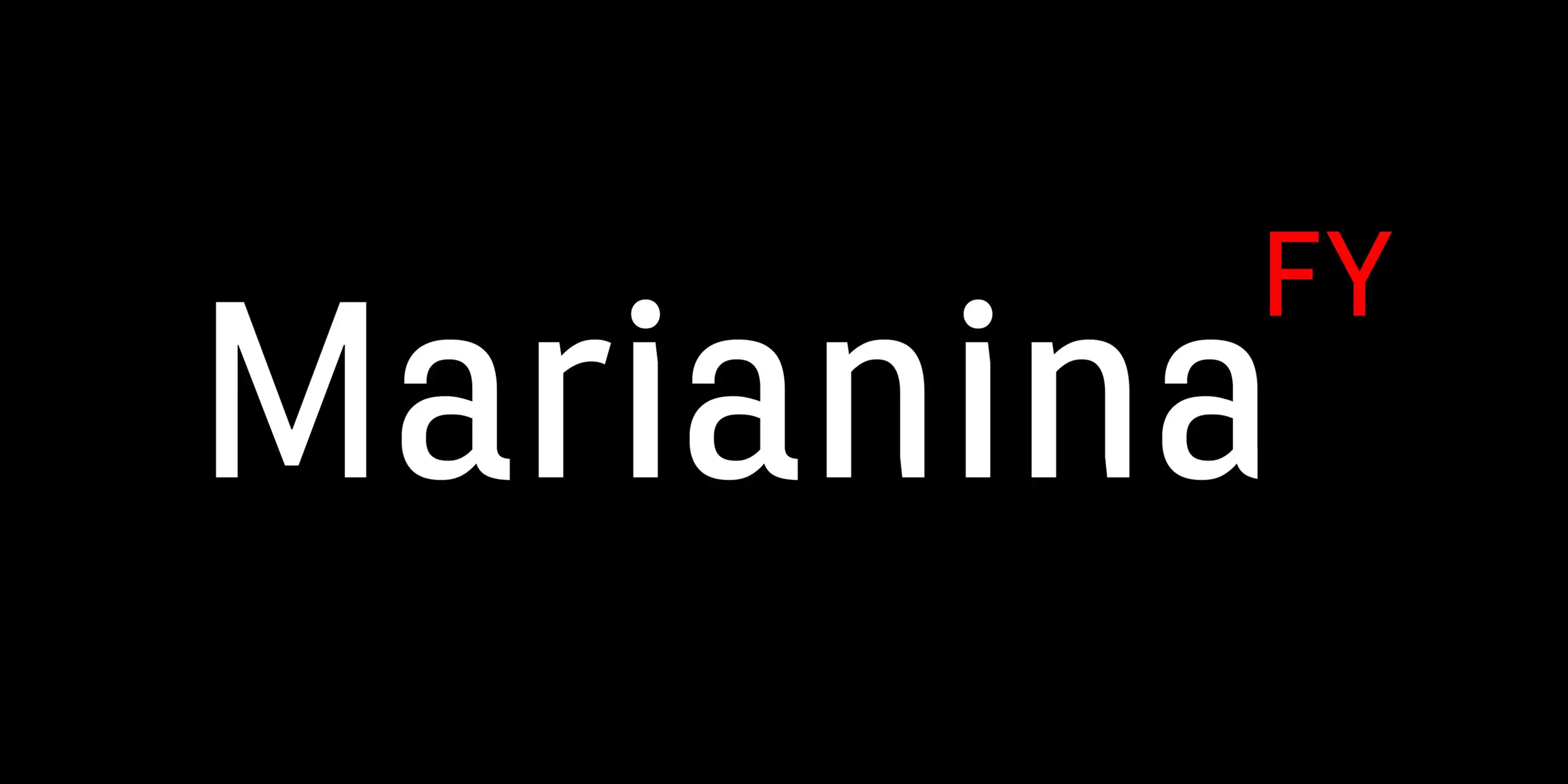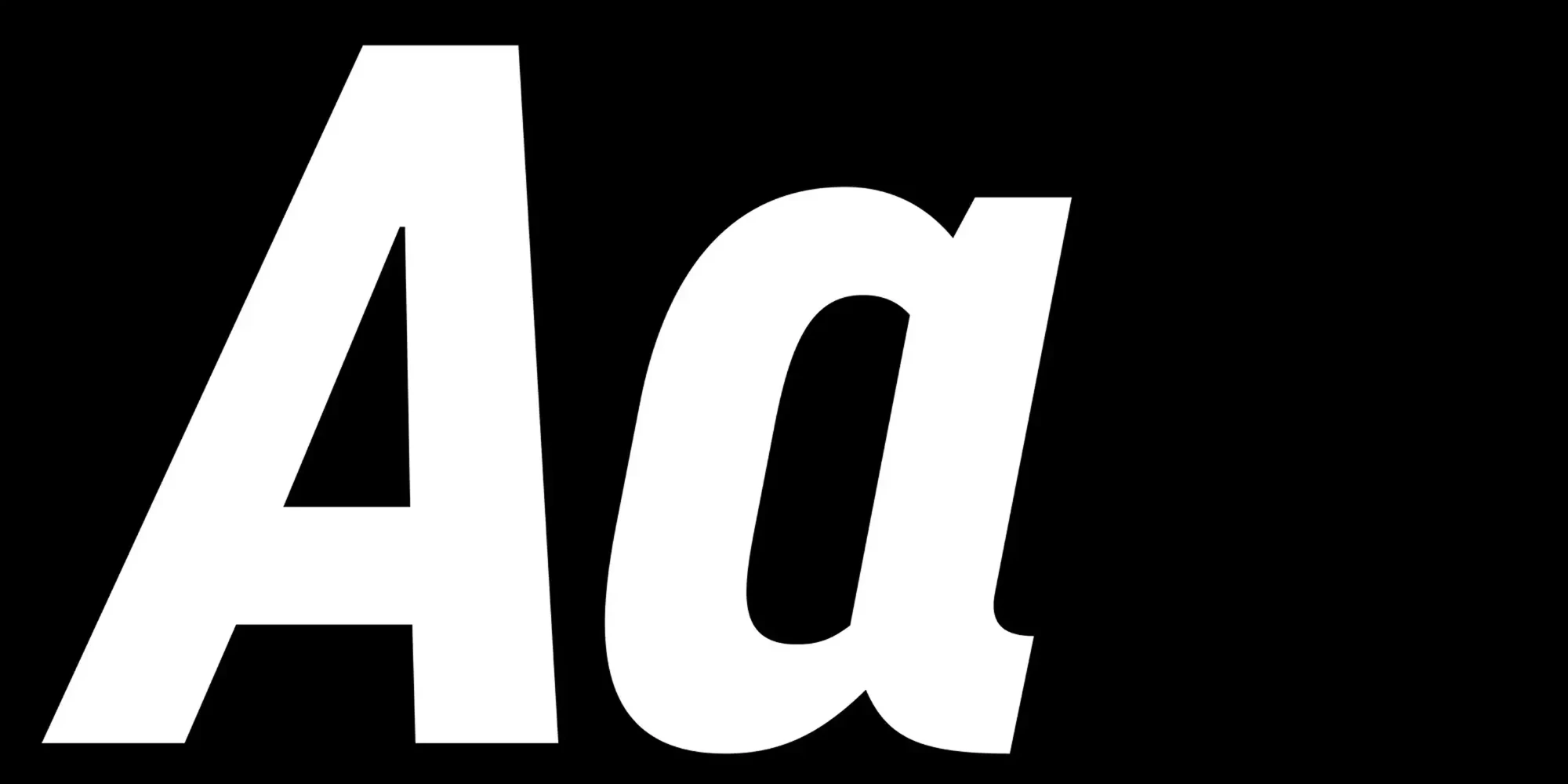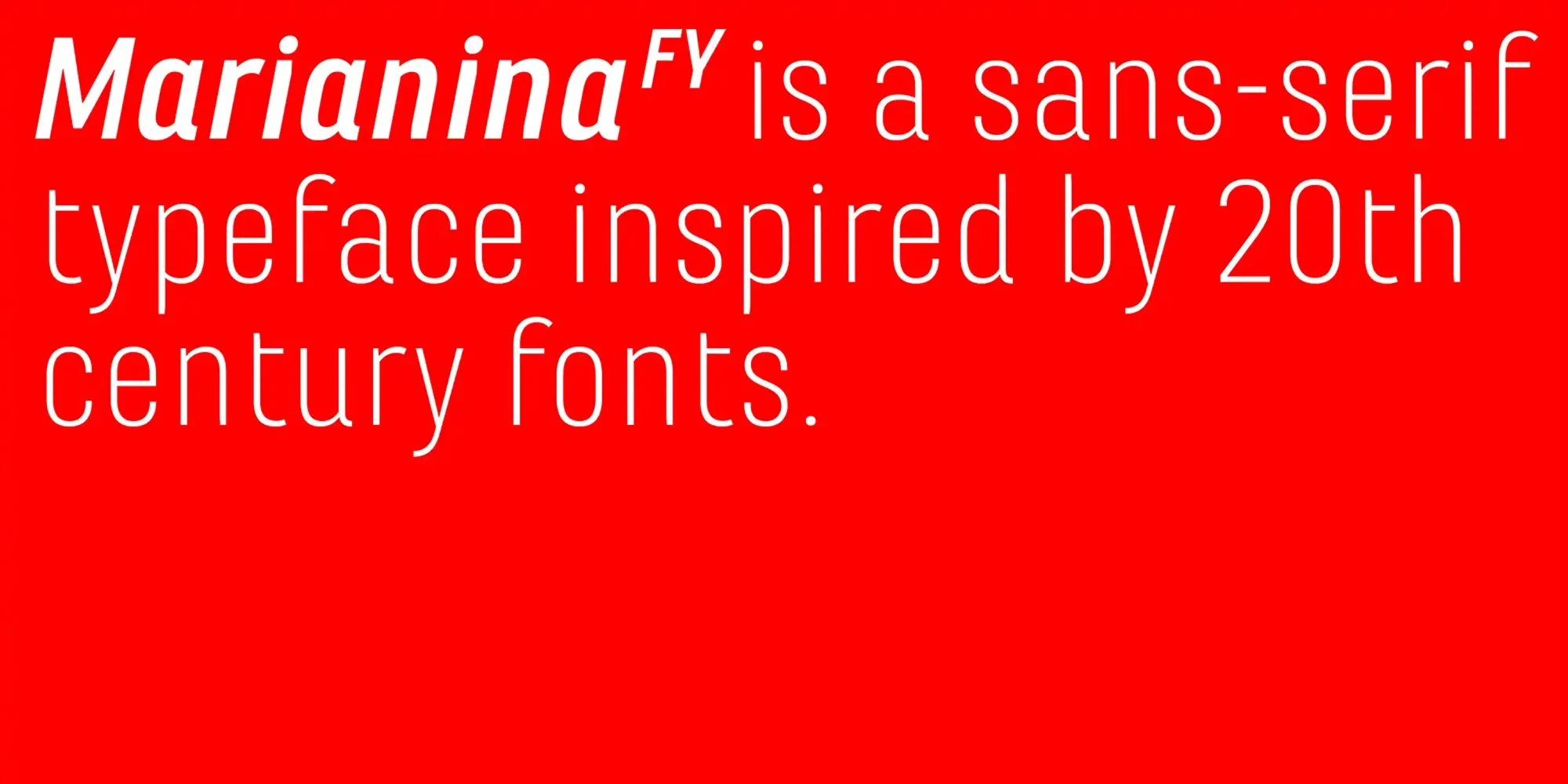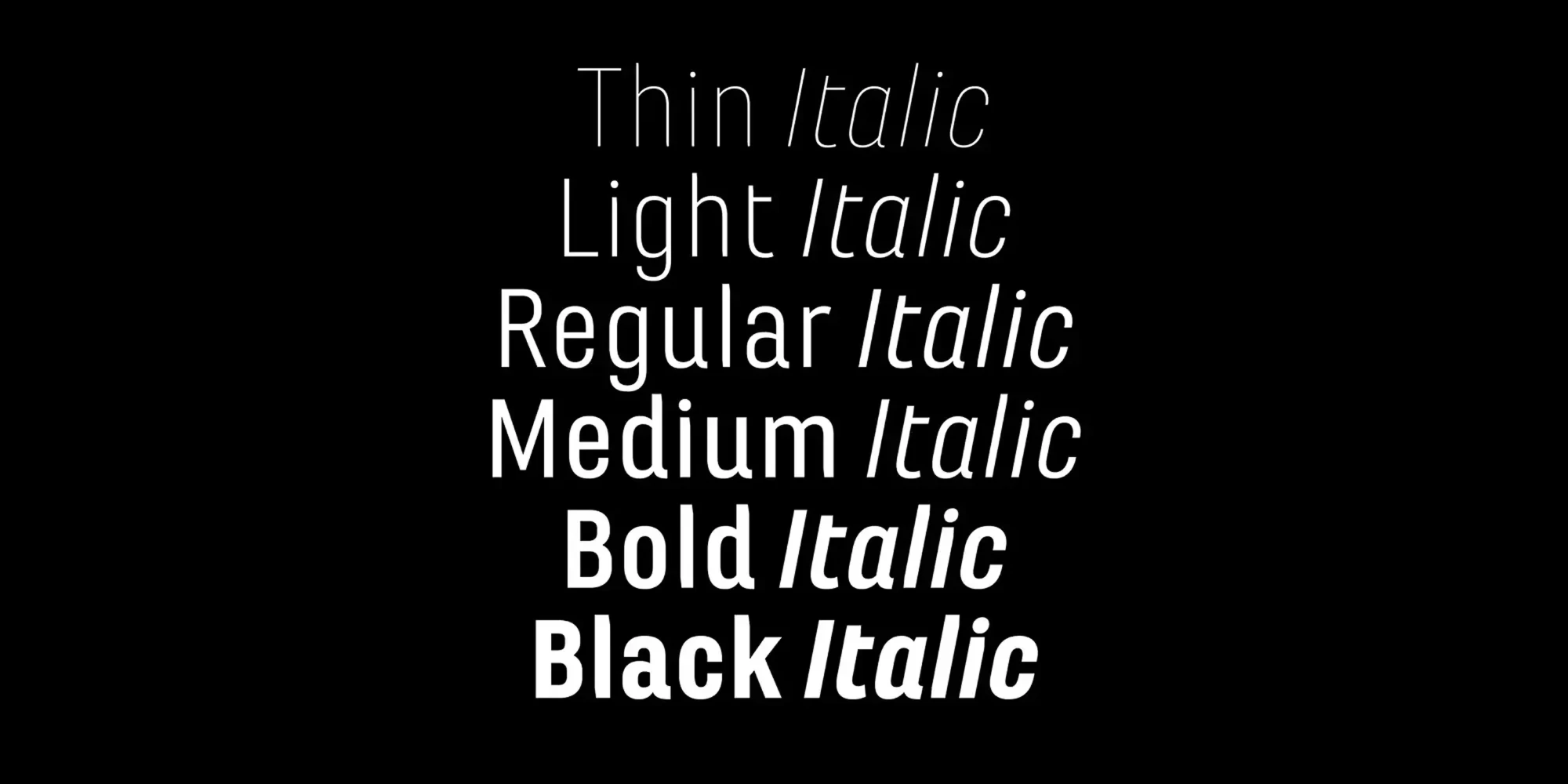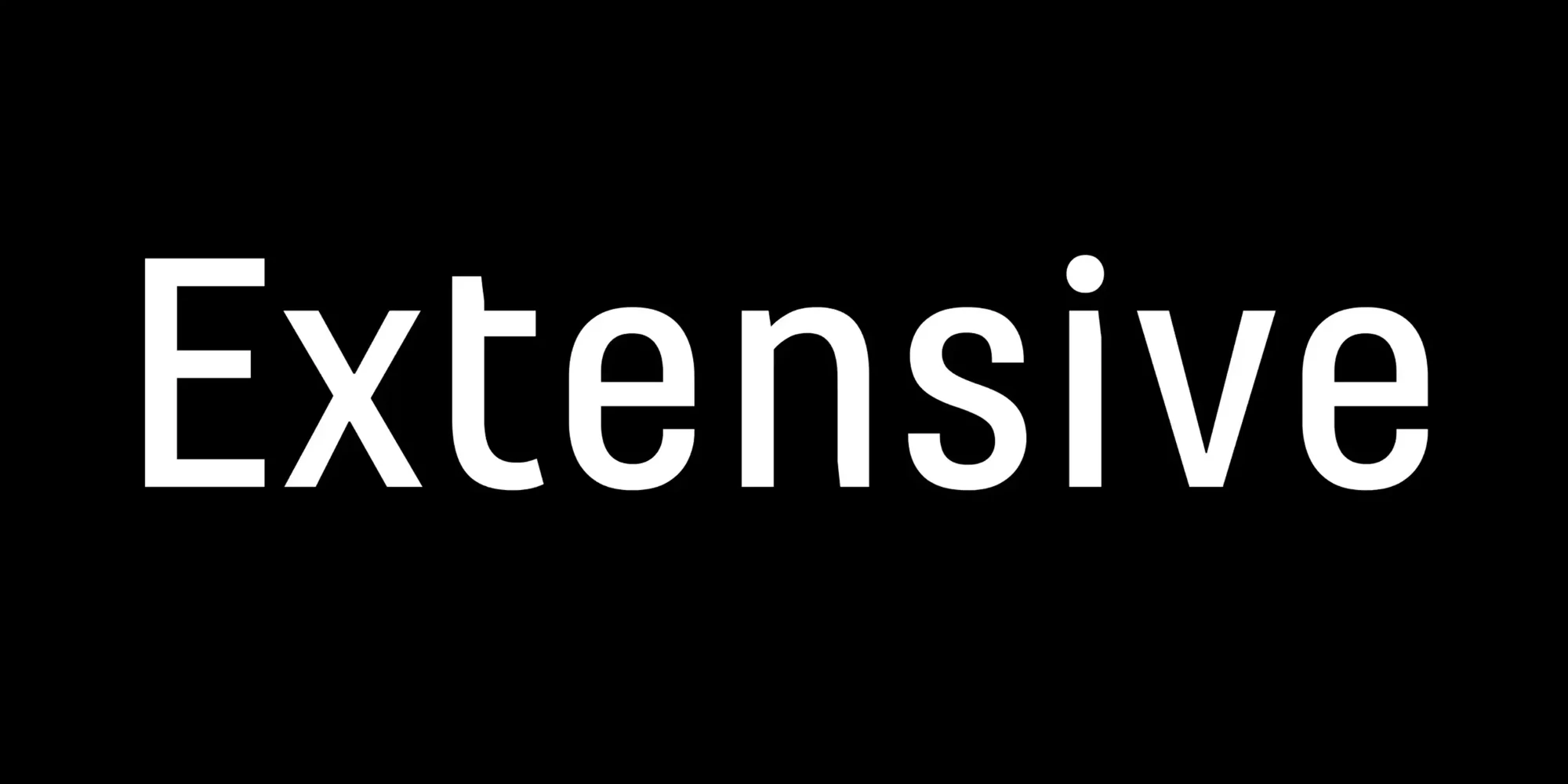
Marianina Font Family
Marianina FY is a versatile sans serif with distinctive ink traps — subtle in lighter weights, more pronounced in heavier ones — enhancing legibility and character. Inspired by 20th-century typography, it’s ideal for both small and large text sizes. Created for design applications from editorial to branding and UI, Marianina FY offers two variable fonts or 4 widths, 6 weights, 48 styles, including matching italics, giving designers comprehensive typographic control.
![Marianina font by Black[Foundry] — the words “Thin Italic”, “Light Italic”, “Regular Italic”, “Medium Italic”, “Bold Italic”, and “Black Italic” in progressively heavier sans-serif italic type.](https://typographer.io/1/assets/blk:marianina/banner-4.webp:size(2000,1000)?8d9e)
![Marianina font by Black[Foundry] — the word “Extensive” in white sans serif upright letters](https://typographer.io/1/assets/blk:marianina/banner-5.webp:size(2000,1000)?bac5)